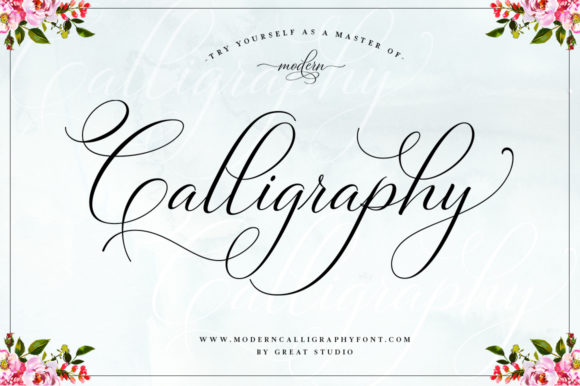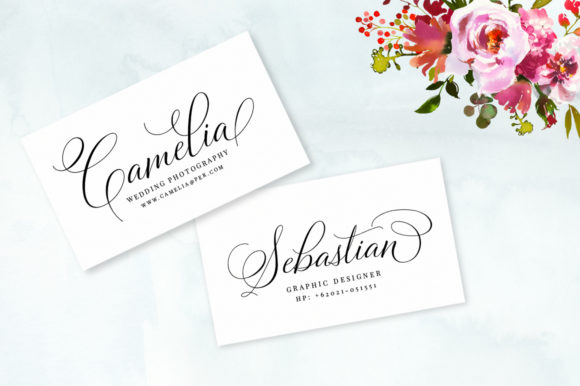
Bettrisia Script Font
db-ku.com - Script & Handwritten -- The Bettrisia is a modern and elegant calligraphy script. It includes beautiful characters and a classic decorative copper script with a modern touch.